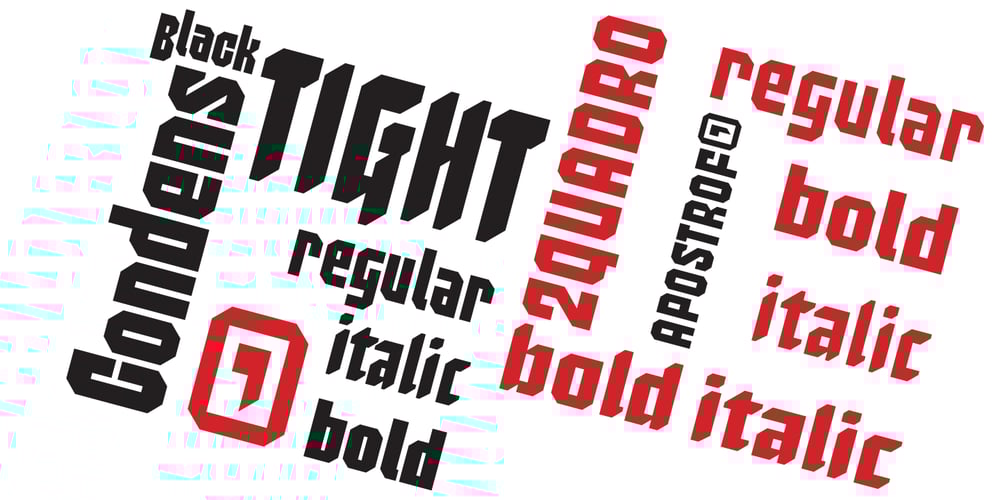
2 Quadro
2 Quadro font
2 Quadro Font Family was designed by Viktor Kharyk and published by Apostrof. 2 Quadro contains 8 styles and family package options. This big family summarizes and develops the tradition of boldface squared-off 45° shear sanserifs. Known from the middle of 19th century and actively used in different times (1920s, 1970s) is still usable now, thanks to its brutal expression, monumentality and possibility to fully maximize the flatness without loss of readability. This font is especially good for filling letters with photos or to create geometrical “constructivist” compositions.